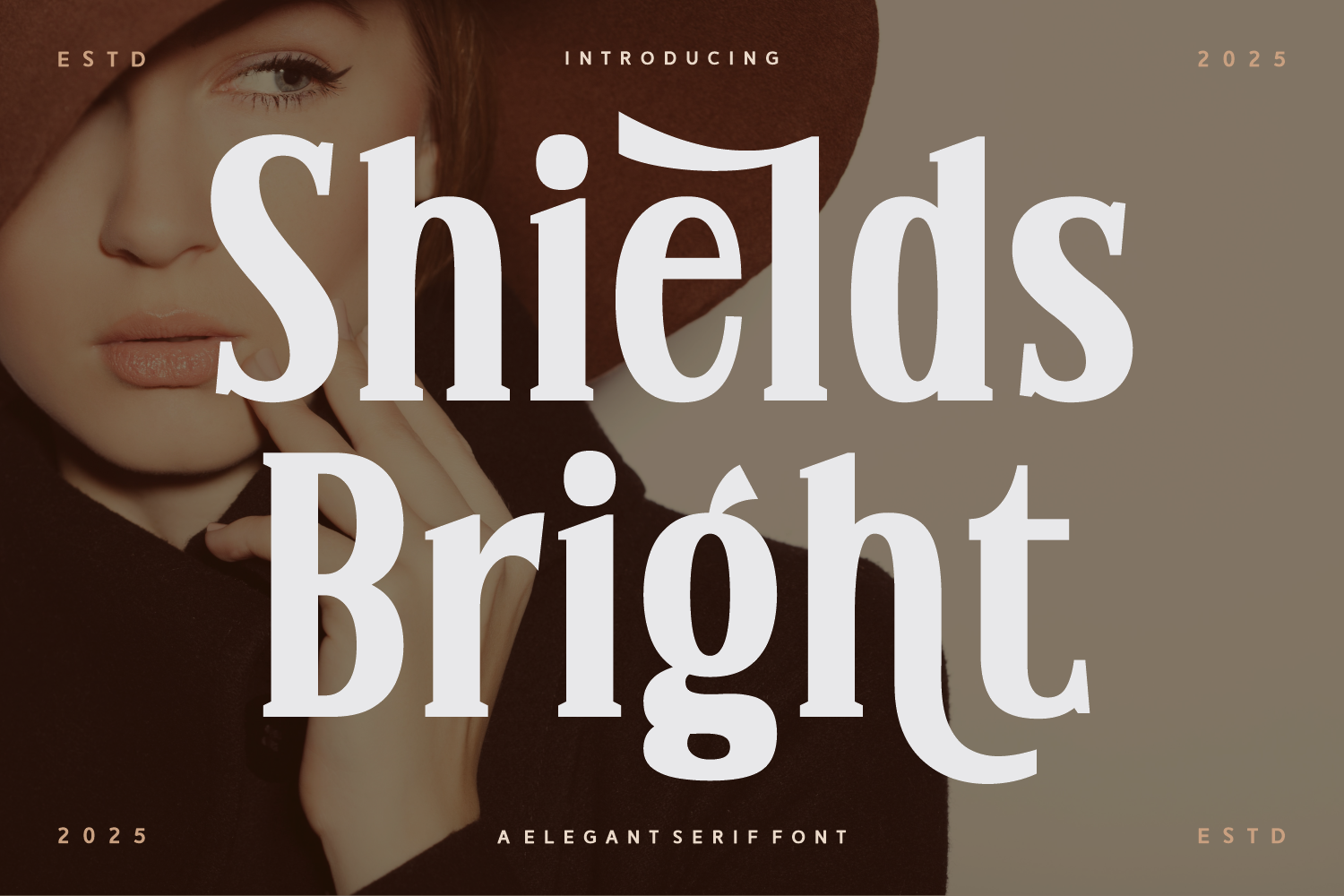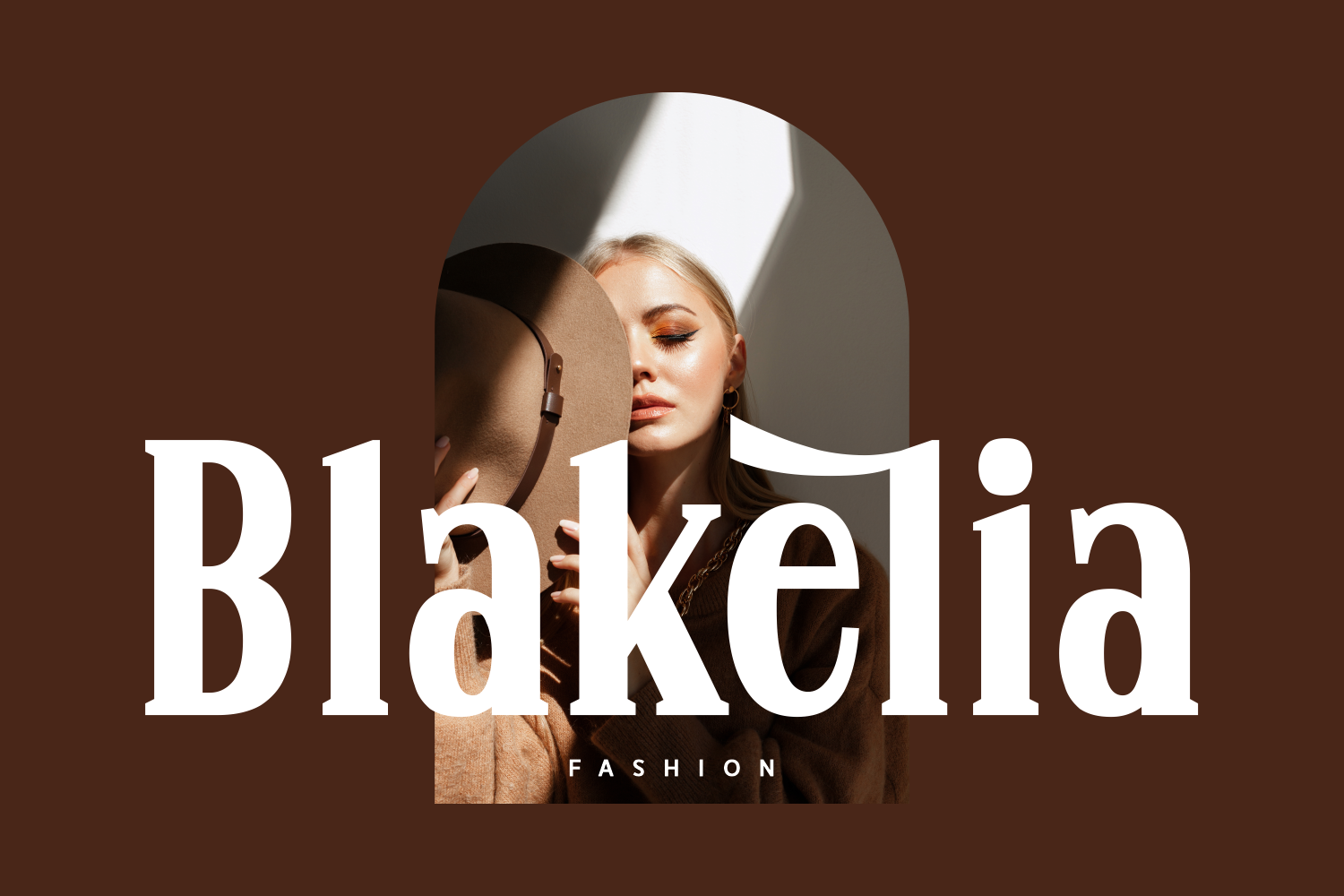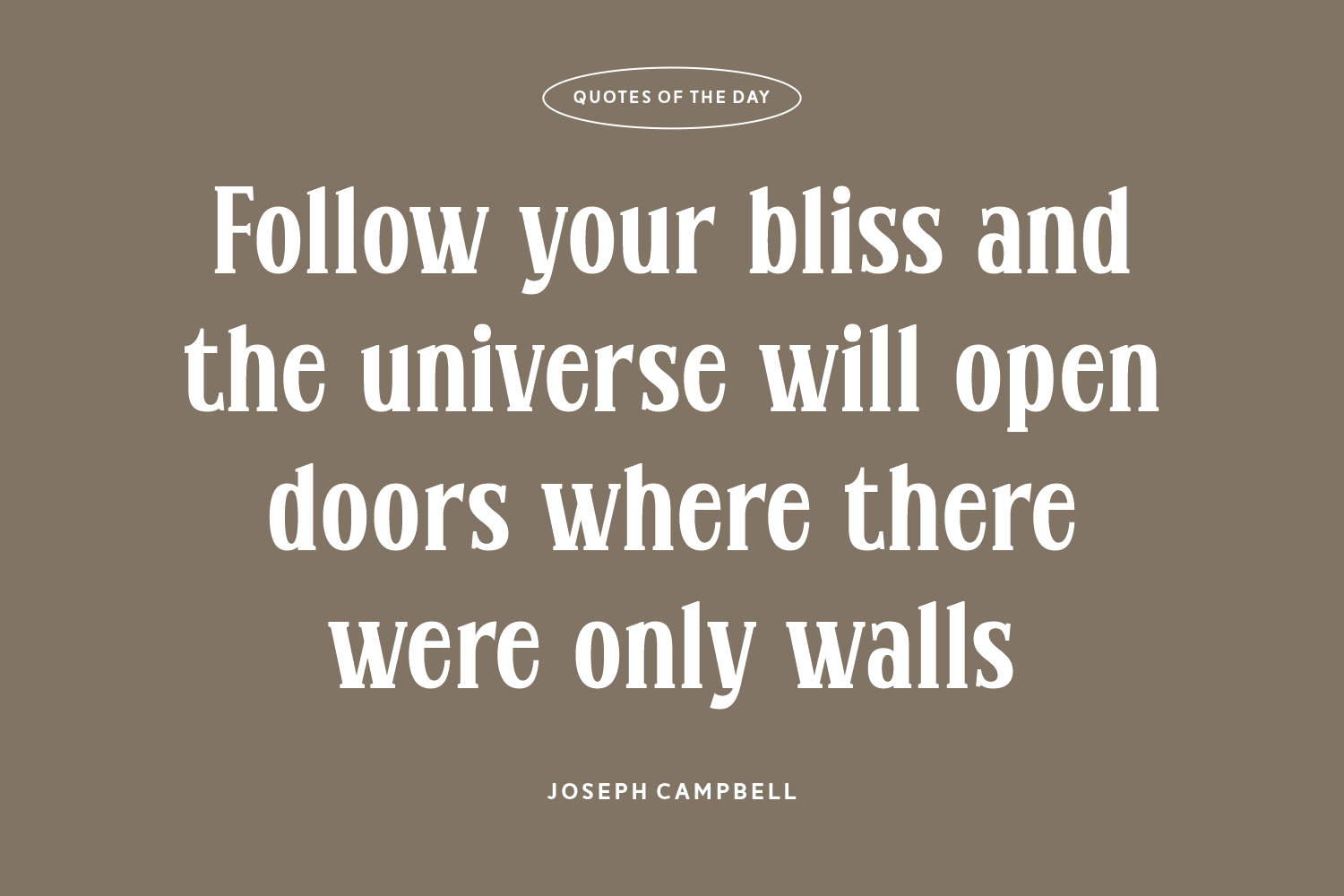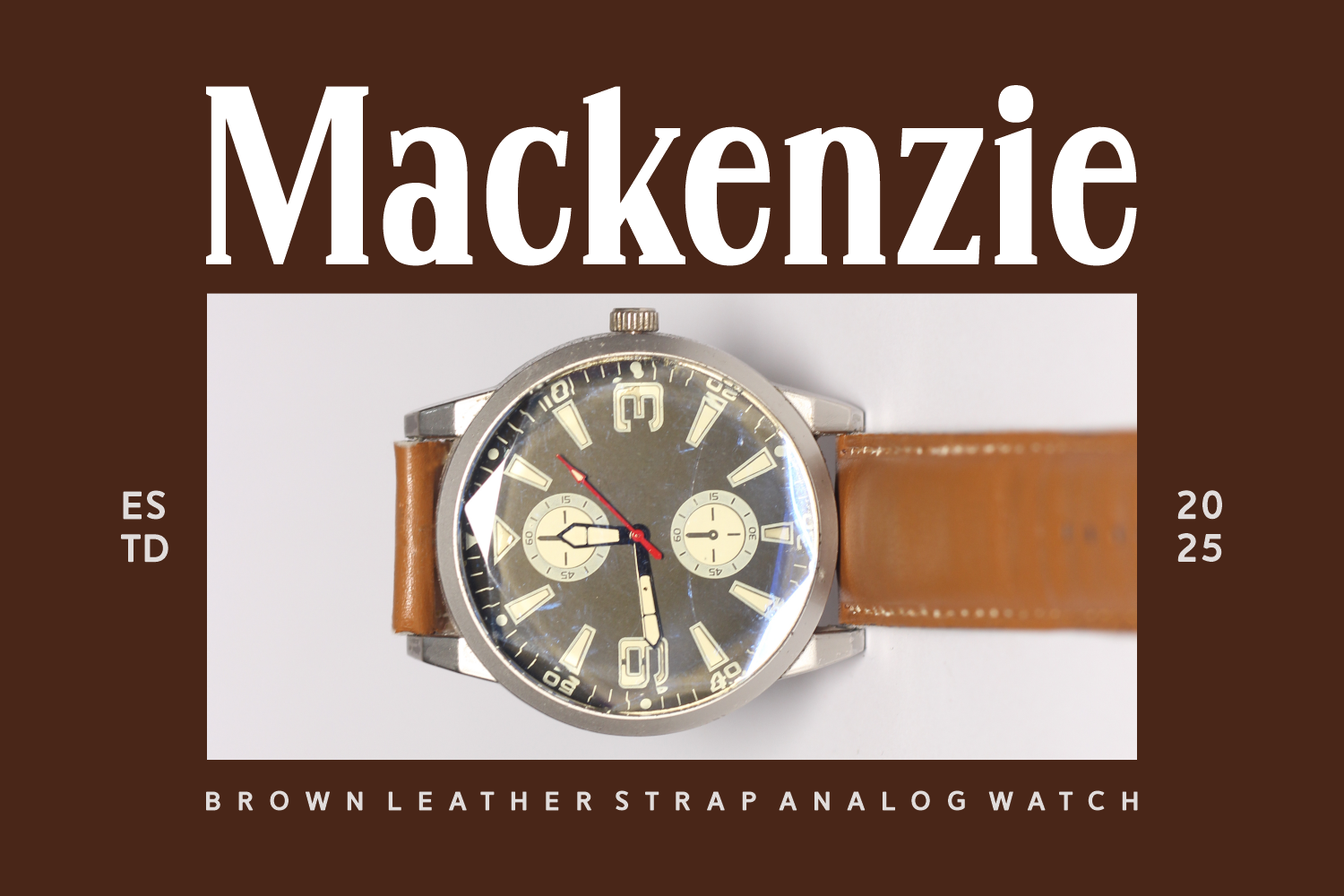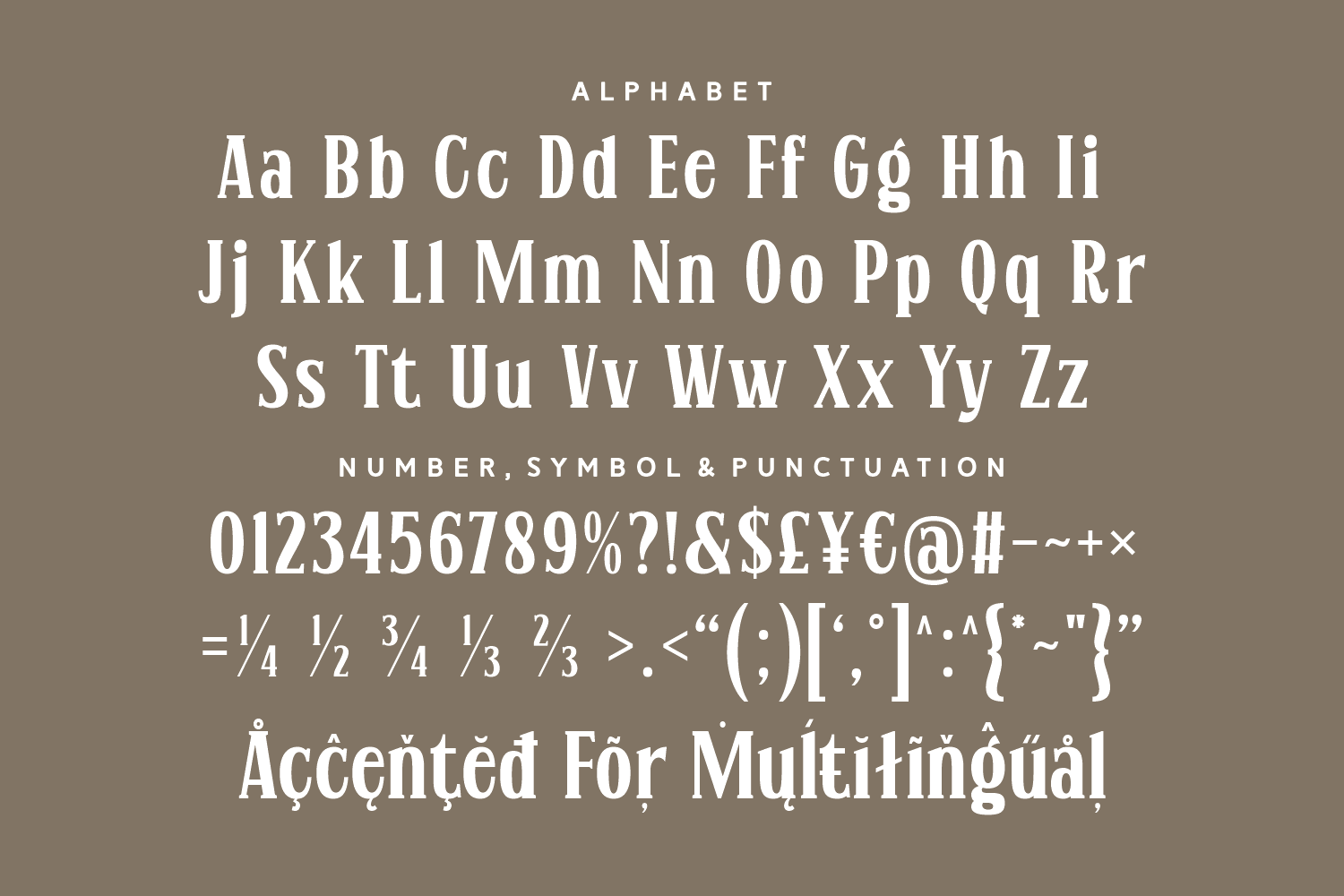
Shields Bright is a commanding modern serif font that pairs sharp contrast with unique, angular terminals and subtle vintage influences. Its confident structure and stylish curves make it ideal for fashion editorials, branding, and sophisticated display use.